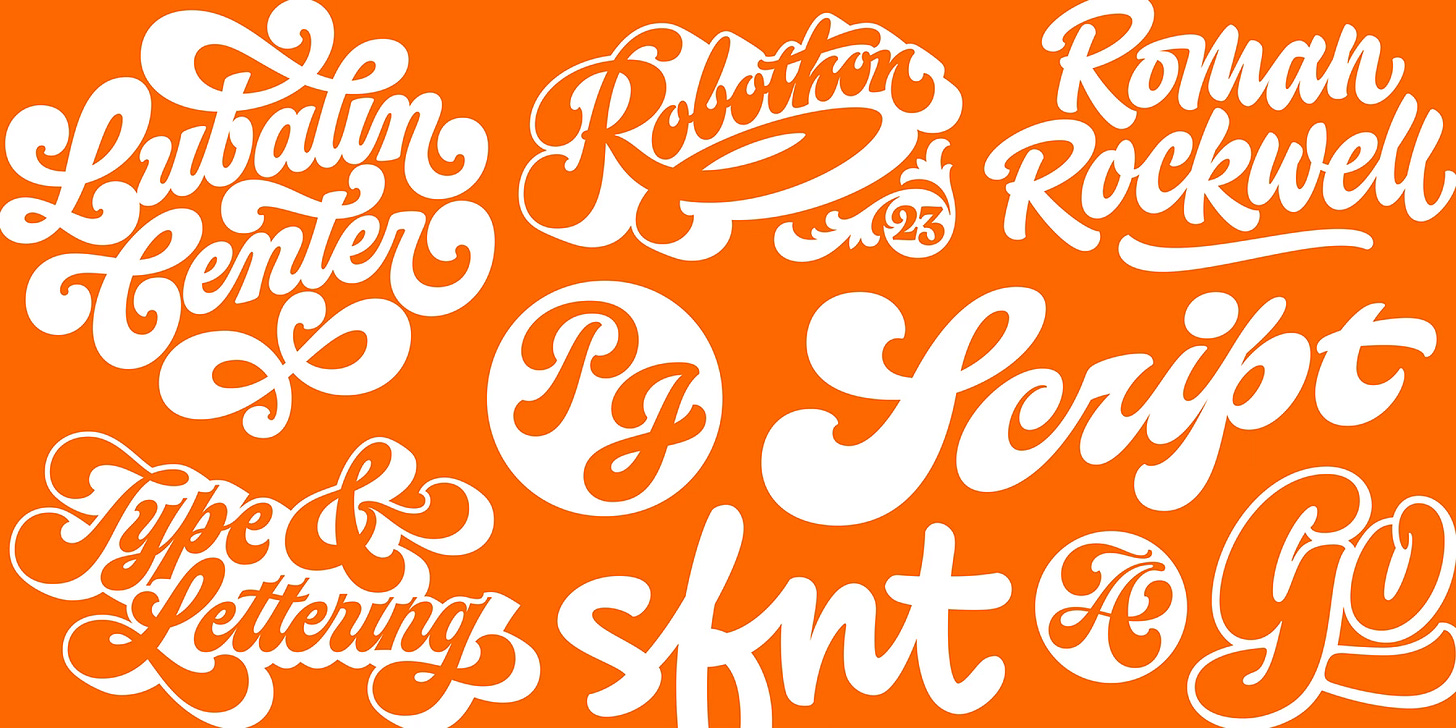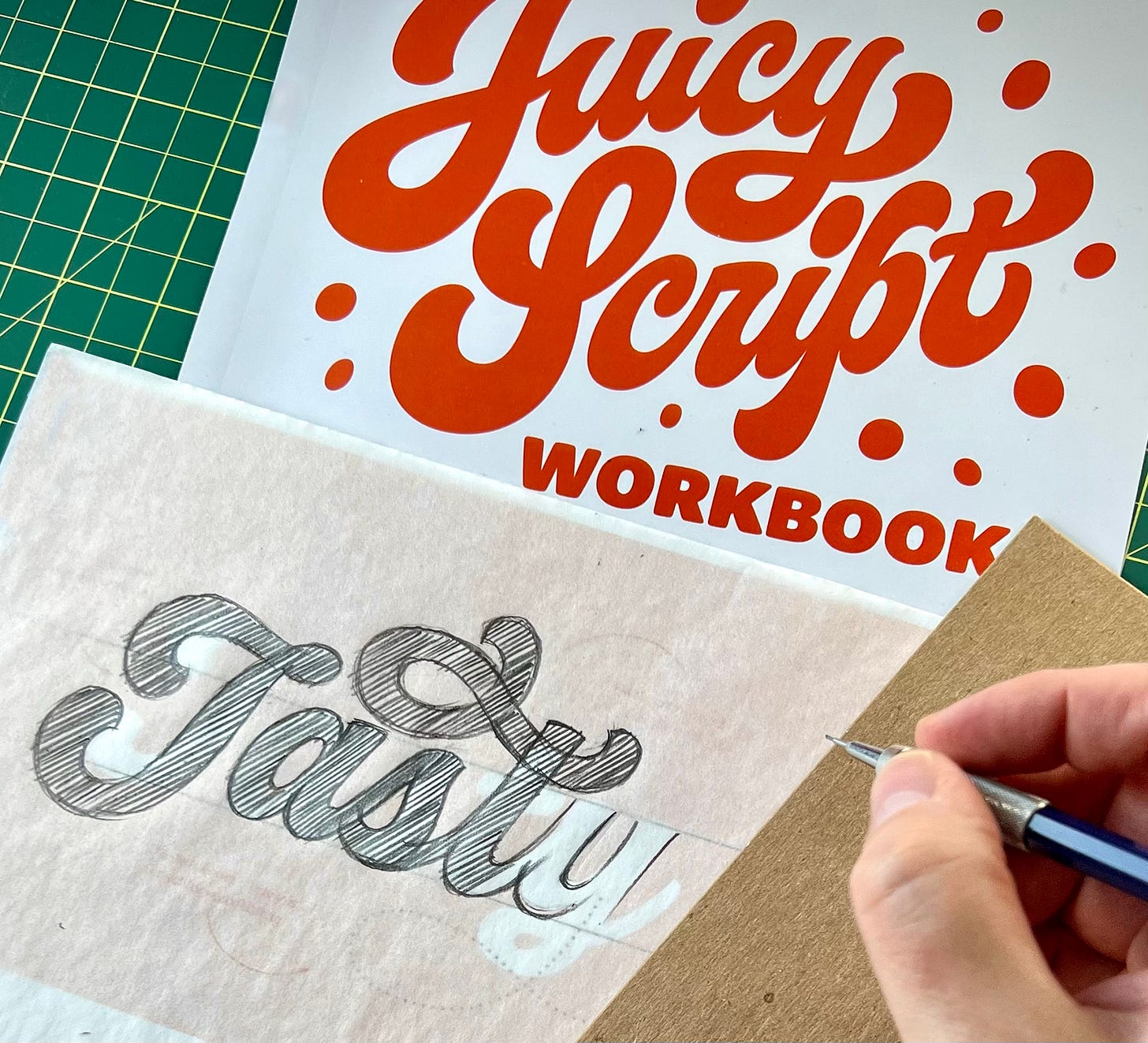
Bold, eye-catching script lettering is everywhere—on logos, packaging, headlines, you name it. But with all that punch packed into each stroke, it’s easy for heavyweight cursive to look awkward or clunky. In this Saturday’s online Juicy Script workshop, you’ll learn how to create beefy, confident lettering that’s both fluid and stylish.
The bonus workbook is filled with extra lettering instruction and exercises
We’ll break down practical strategies for shaping heavy script forms, connecting letters smoothly, and embellishing them to create jaw-dropping layouts. The class includes detailed presentations, interactive drawing demos, and a free 32-page PDF guidebook. Add the 31-page bonus workbook for extra practice.
Juicy script is perfect for all kinds of logo and lettering applications